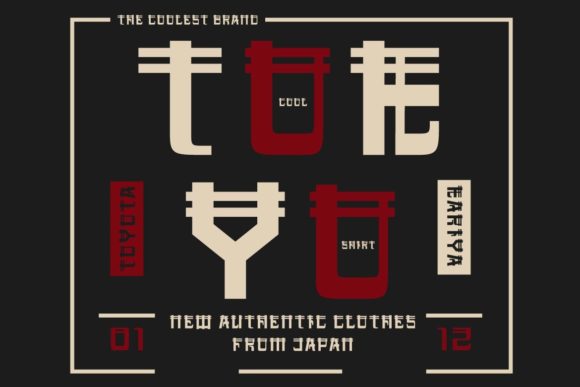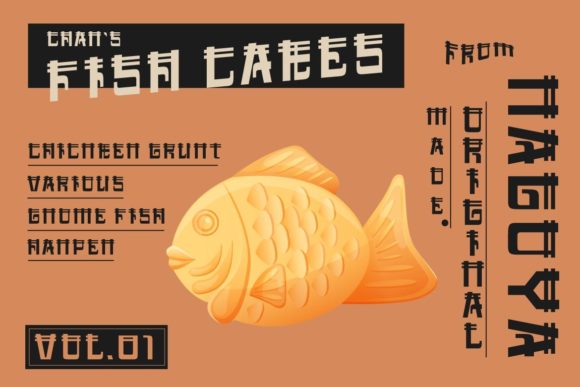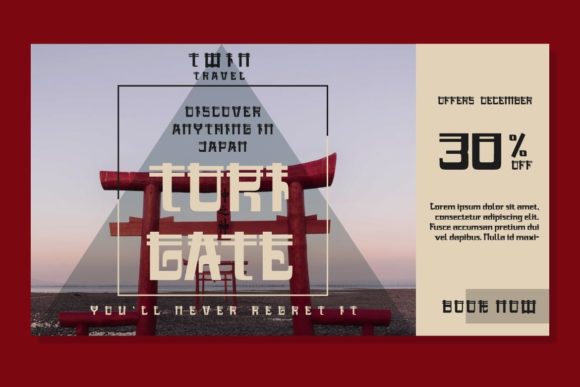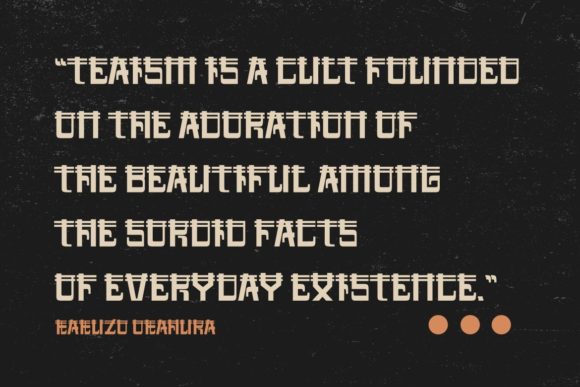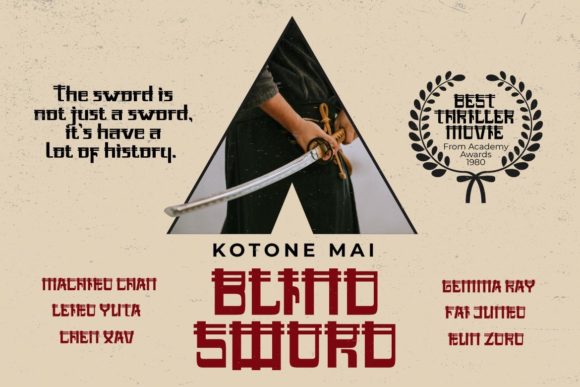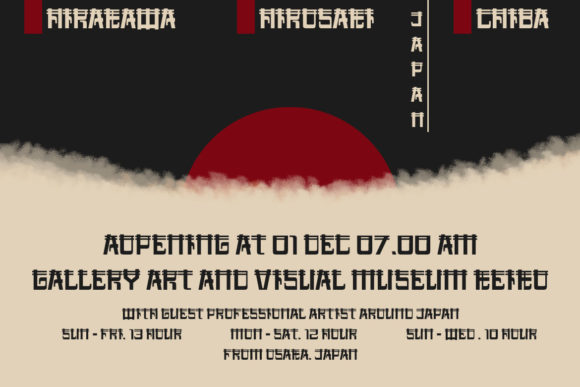
Introduction to Kitetsu Font
Kitetsu is a spoof Japanese display font, created especially for those who need Japanese-themed writing.
Of course, this typeface is also very attractive when used for other graphic display purposes If you choose this typeface, your project will leave your audience impressed because of its unique, abstract, and has a different shape which will set it apart from the rest.